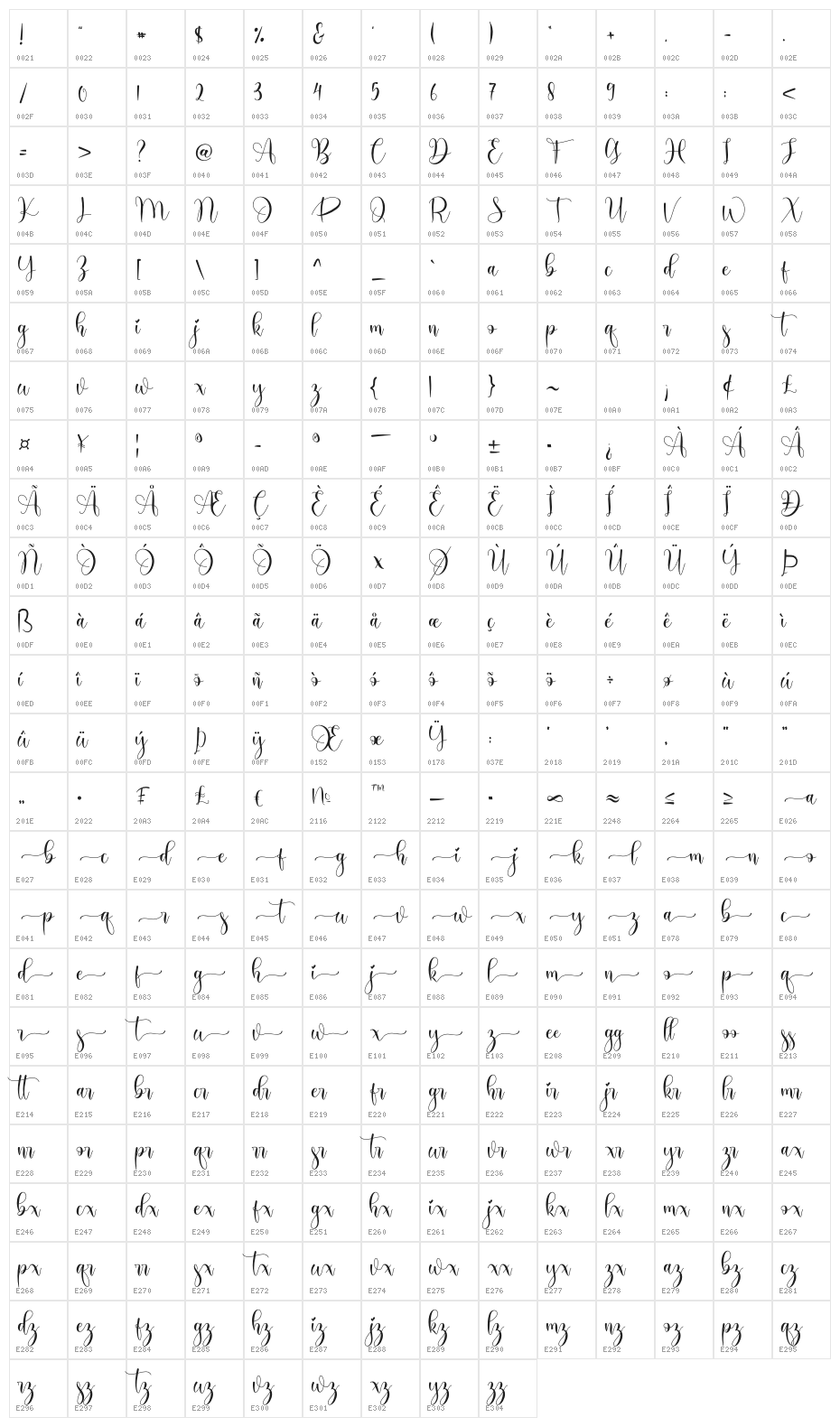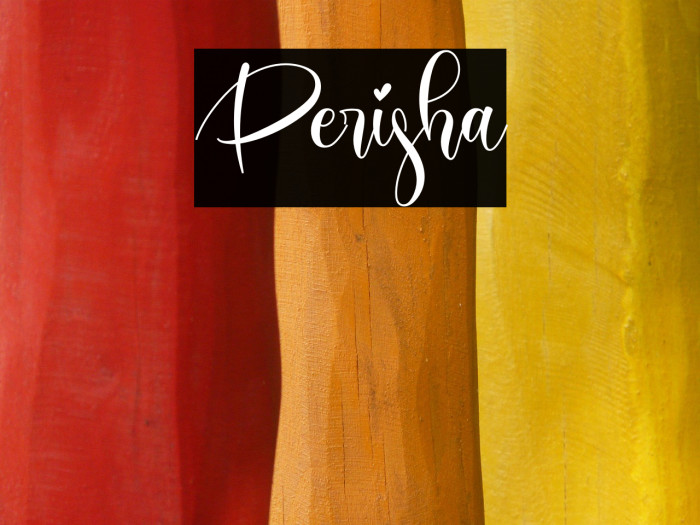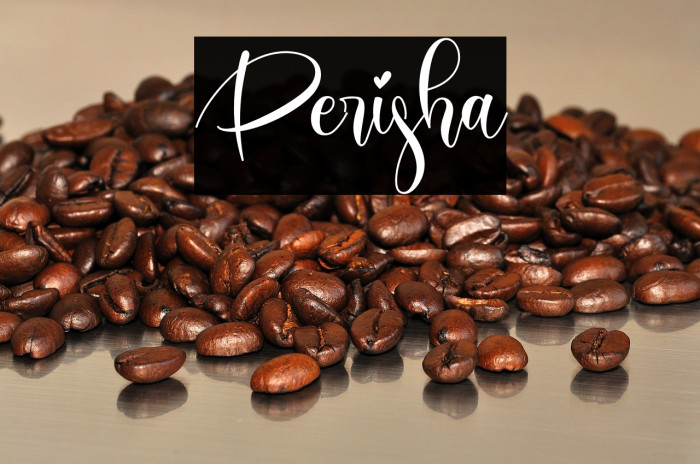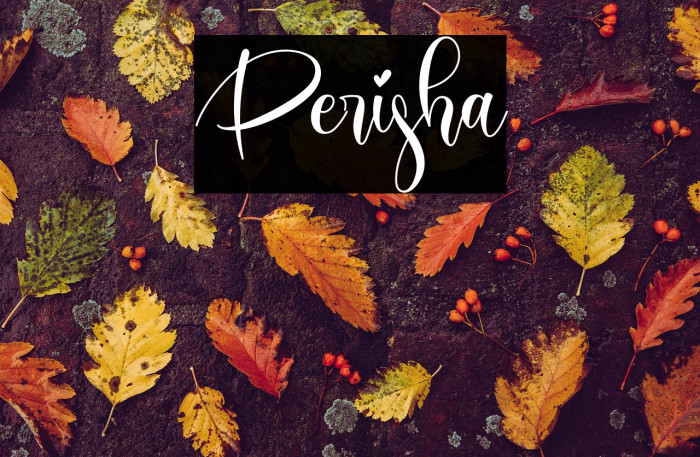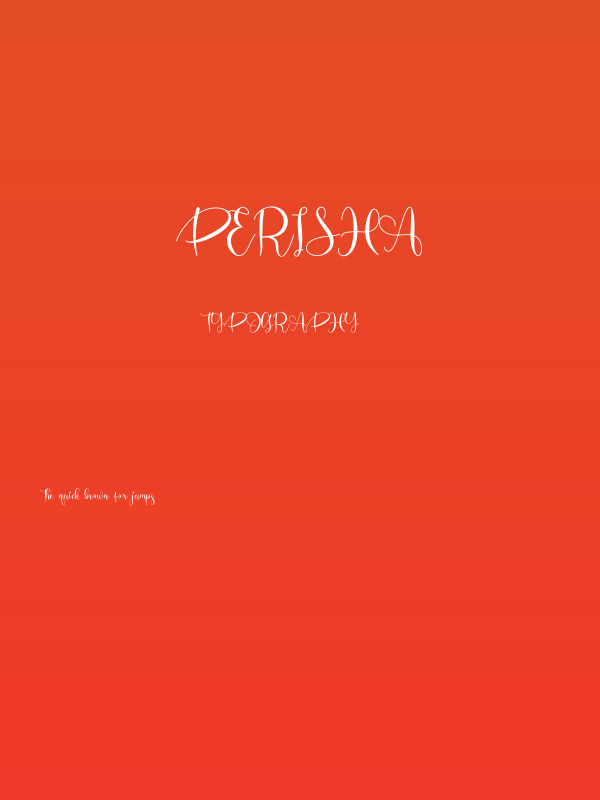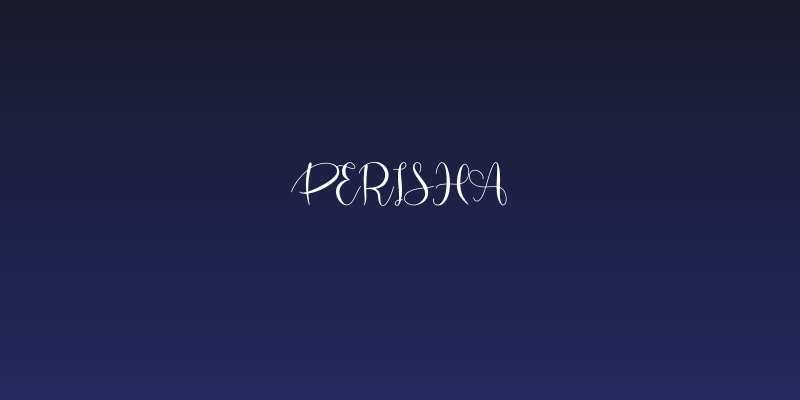
Perisha Font
Perisha Description
This font features an elegant and flowing script style with a modern twist. The uppercase letters are characterized by their intricate loops and swirls, creating a sense of movement and grace. The lowercase letters maintain a consistent flow, with some characters featuring unique flourishes that add personality and charm. The numbers are clear and legible, maintaining the overall aesthetic of the script. Special characters are designed with the same attention to detail, ensuring they complement the rest of the font. This font is perfect for projects that require a touch of elegance and sophistication, such as wedding invitations, branding, and high-end product packaging.
| Use Case | Logos, Invitations, Decorative text |
| Proposed Projects | Wedding invitations, branding, high-end product packaging, greeting cards. |